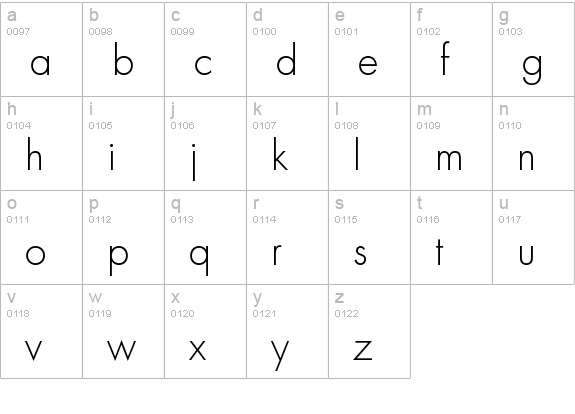
Futura Std Light Font Details
Futura Std Light is a refined, elegant variant in the Futura typeface family \xE2\x80\x94 well suited to elegant body text, refined sub-headings, and luxury branding.
Futura Std Light is a modern and elegant font that exudes sophistication and clarity. With its sleek and minimalistic design, this typeface is perfect for creating a polished and professional look in any project. The light weight of the font adds a touch of subtlety and refinement, making it ideal for use in branding, editorial design, and more. The best part? Futura Std Light is available for free download at FontsMarket.com. Whether you're a designer looking to enhance your typography collection or a business owner seeking a fresh new look for your brand, this font offers a versatile and stylish option that won't cost you a penny. Embrace the timeless appeal of Futura Std Light and elevate your design projects with its clean lines and contemporary aesthetic.